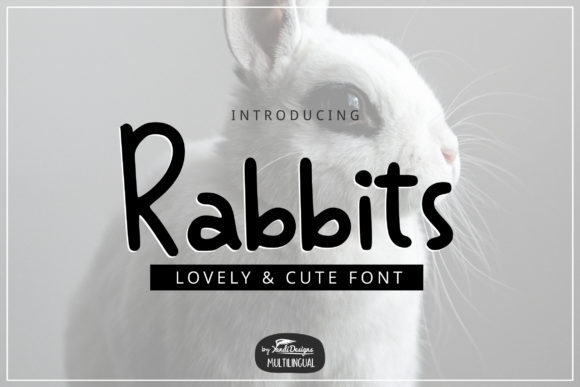
Introducing Rabbits Font, the ultimate digital brush for modern apps. This exquisite script font exudes elegance and finesse, captivating all who lay eyes upon it. Each character is meticulously crafted with a touch of whimsy, ensuring a truly unique visual experience.
Rabbits Font is the brainchild of YandiDesigns, renowned for their unwavering commitment to creating fonts that ignite creativity. This masterpiece is no exception, offering a refreshing departure from the mundane. Its simplicity and neatness make it infinitely versatile, seamlessly blending with any design aesthetic.
Imagine the possibilities that await with Rabbits Font. Transform your letterheads into works of art, elevate your website headers to new heights, and craft social media posts that demand attention. This font is the gateway to unlocking your creative potential, empowering you to make a lasting impression in the digital realm.
Rabbits Font is more than just a font; it's an invitation to embark on a creative journey. Let its graceful strokes guide your imagination, leading you to extraordinary design destinations. Embrace the limitless possibilities and let the world marvel at your creations adorned with Rabbits Font.